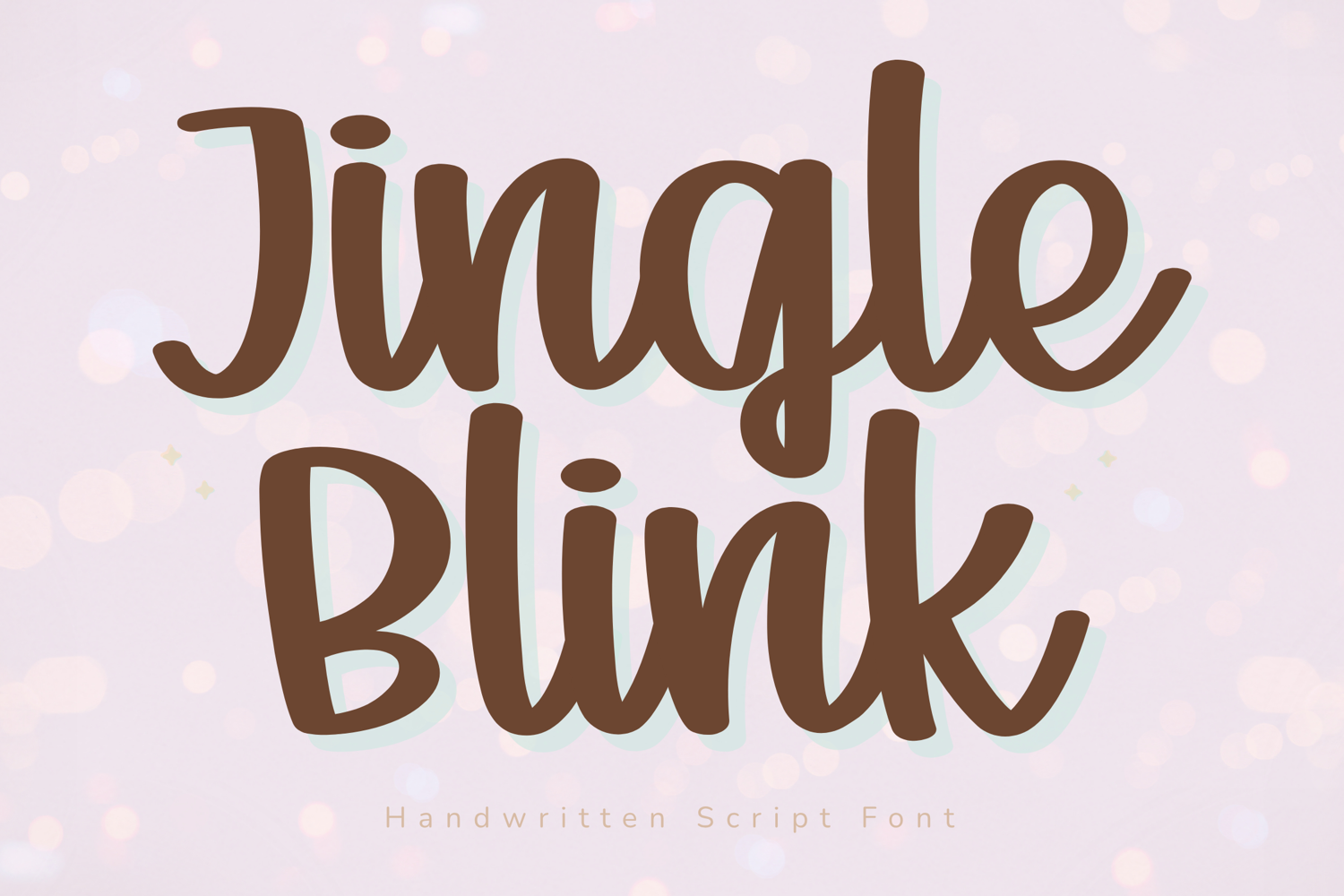
Jingle Blink - Handwritten Script Font
Jingle Blink is a cheerful and playful handwritten script font inspired by sparkling lights, festive magic, and joyful creativity. With bold rounded strokes, soft curves, and a lively handwritten feel, this font adds warmth and personality to every design.
Perfect for Cricut crafters, planner enthusiasts, teachers, and owners, Jingle Blink brings a fun and whimsical touch to stickers, journals, logos, packaging, and social media graphics. Its bright and energetic style makes every project feel charming and memorable.
Uppercase and lowercase letters
Numbers and punctuation
Bold rounded handwritten style
Smooth flowing letterforms
Highly readable and playful
Cricut and Silhouette projects
Planner and journal covers
Sticker sheets and printables
Teacher worksheets
Logo & Branding
Product packaging
T-shirt and mug designs
Social media graphics
Holiday and festive designs
Holiday stickers
Planner titles
Journal covers
Classroom materials
Boutique logos
Social media posts
Brand Mood:
Cheerful
Playful
Sparkly
Feminine
Cute
Festive
Design Style:
Jingle Blink combines the softness of handwritten lettering with a sparkling, joyful personality. The rounded shapes and bold strokes create a font that feels sweet, energetic, and versatile for both everyday and seasonal projects.